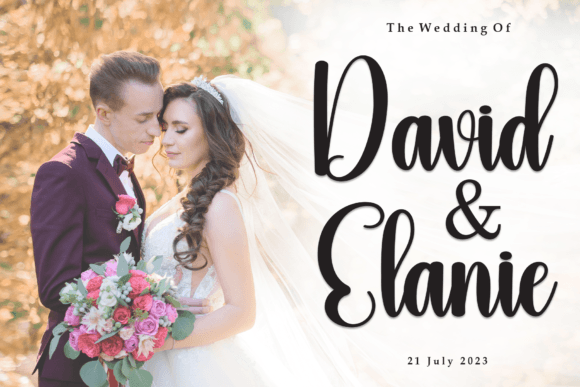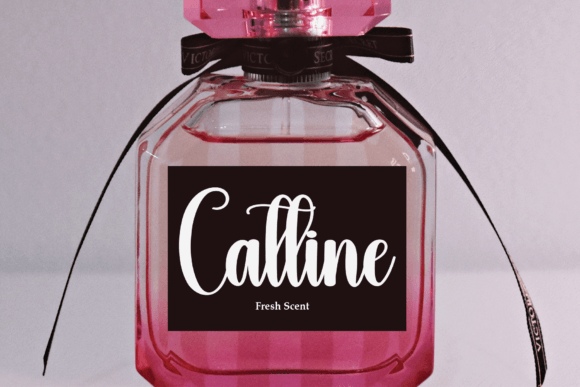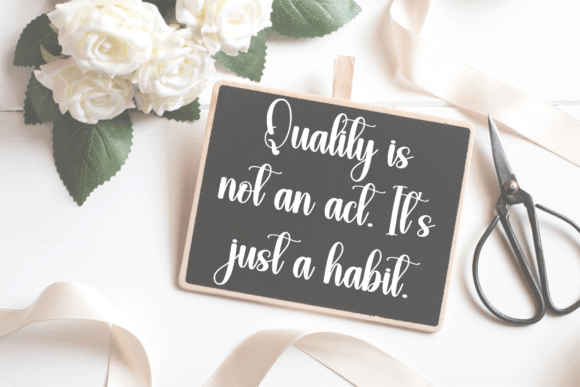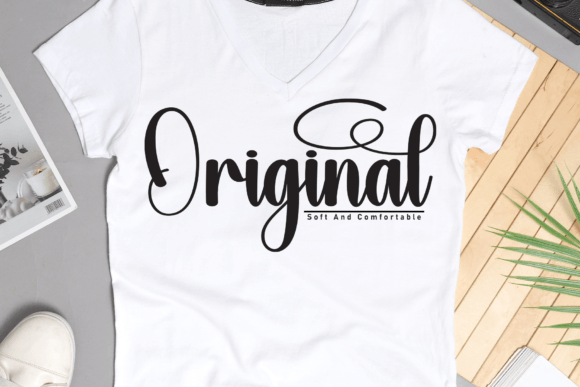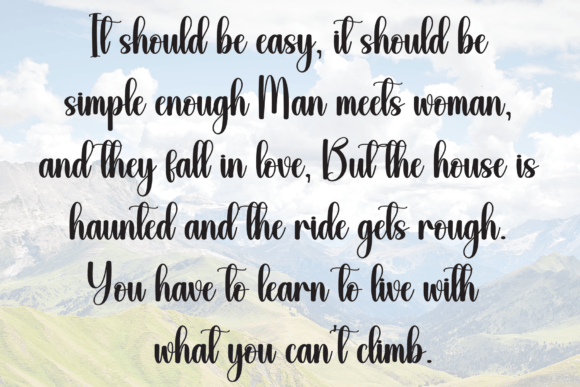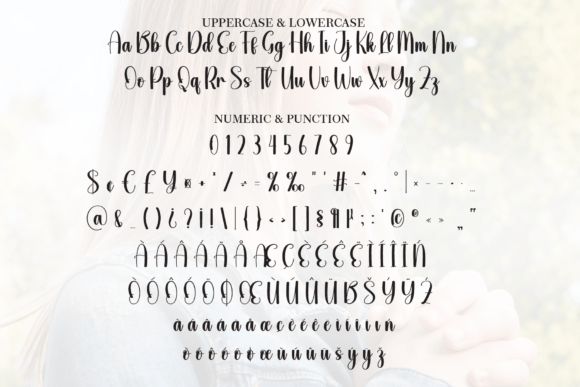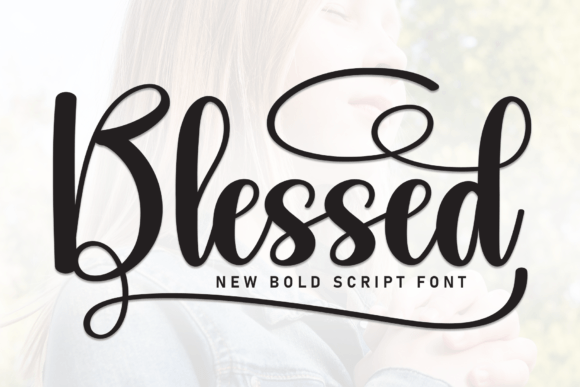
The Blessed Font: Elevate Your Designs with Elegant Typography
Have you ever been in the middle of a design project, and suddenly, you’re stuck on finding the perfect font? I recall a recent experience where I was working on a wedding invitation design, and my client requested a unique, elegant font that would match their special day’s theme. After hours of searching, I stumbled upon the Blessed Font, which became the perfect solution. In this article, I’ll share my experience with this beautiful font, its features, and how to make the most of it in your designs.
• 💫 Elegant and tasteful handwriting style perfect for various design projects
While the Blessed Font is an excellent choice, there are a few minor considerations:
• 🤔 Some users might find the font a bit too delicate for certain design projects, such as bold or attention-grabbing applications
The Story Behind the Blessed Font: Designer Inspiration
The Blessed Font was created with the intention of providing designers with a unique, elegant typography option. Inspired by classic calligraphy and modern handwriting, this font combines sophistication with a personal touch. The designer aimed to craft a font that would be versatile, easy to read, and perfect for a wide range of design projects.